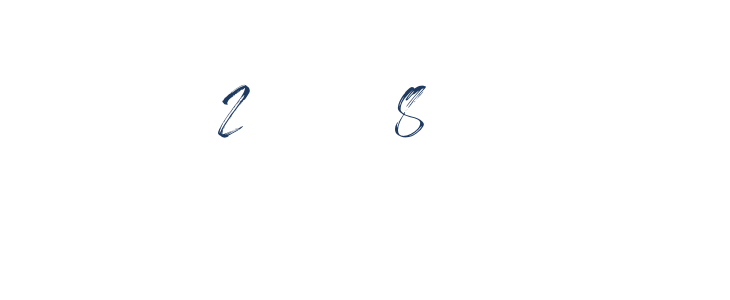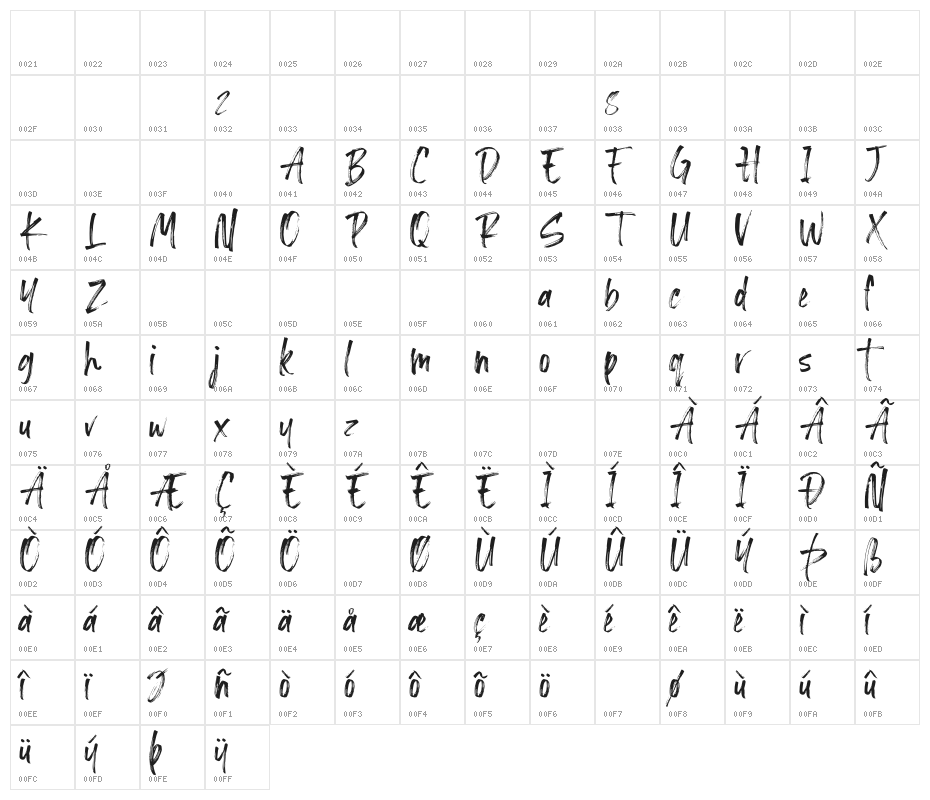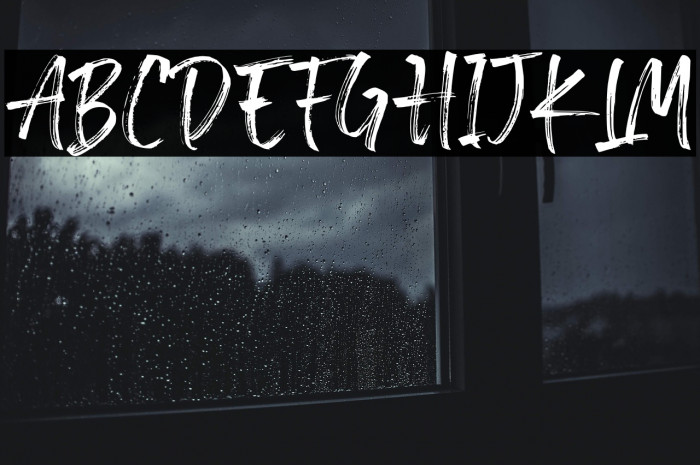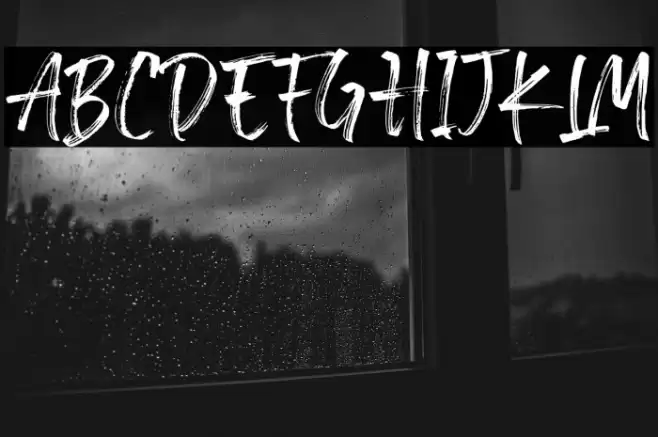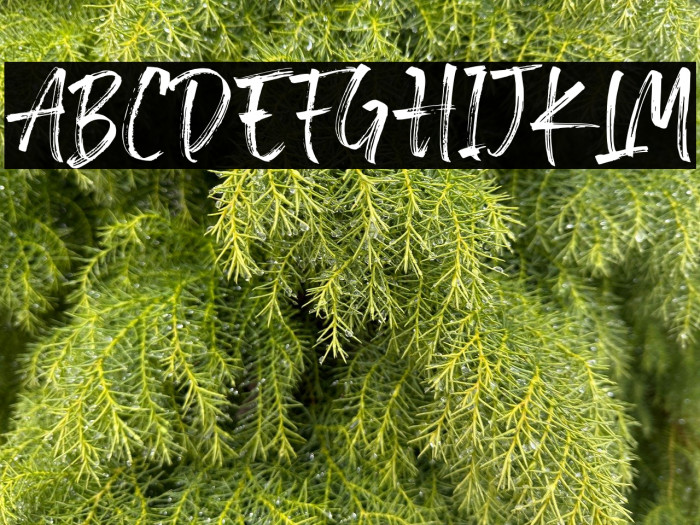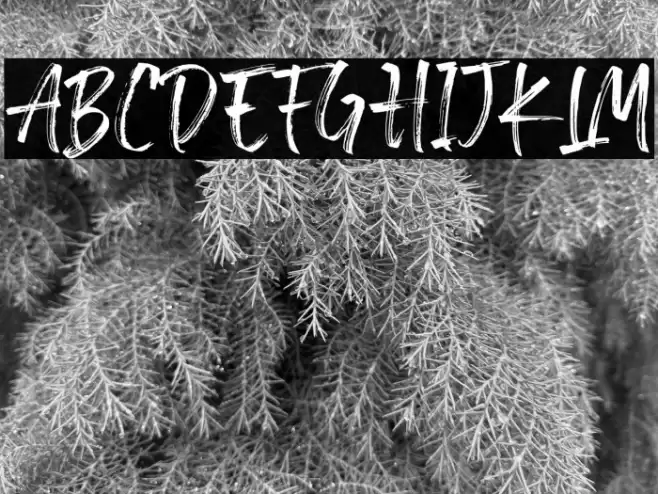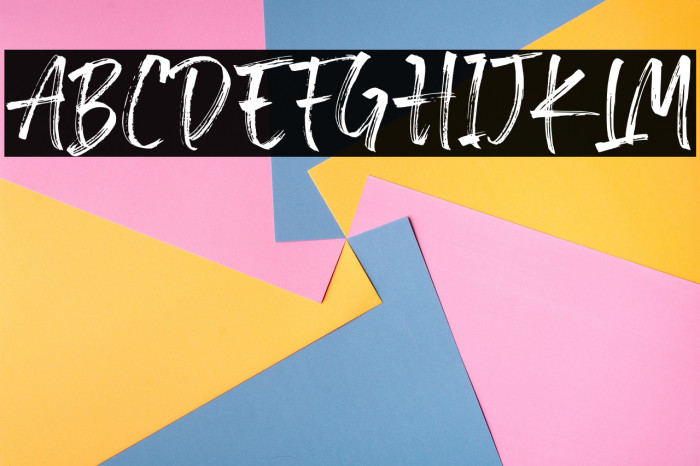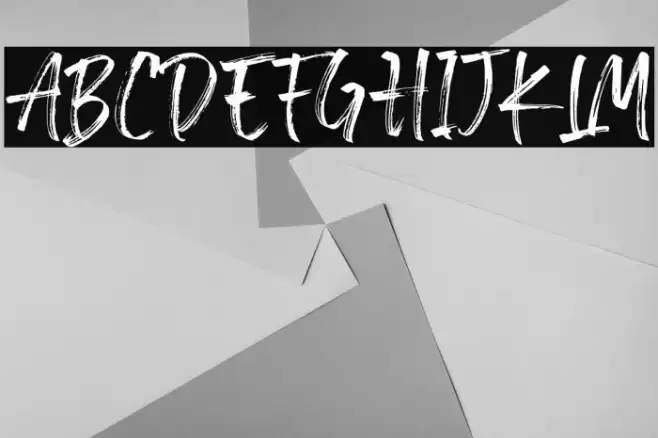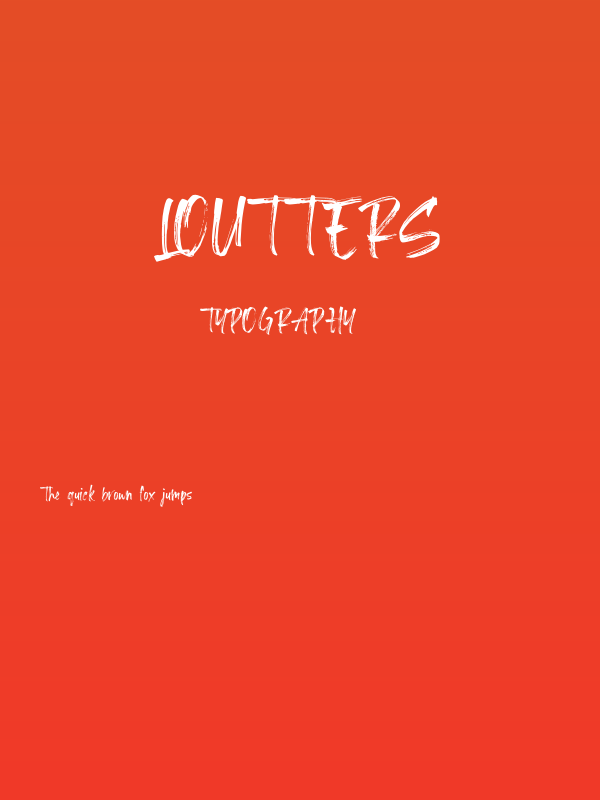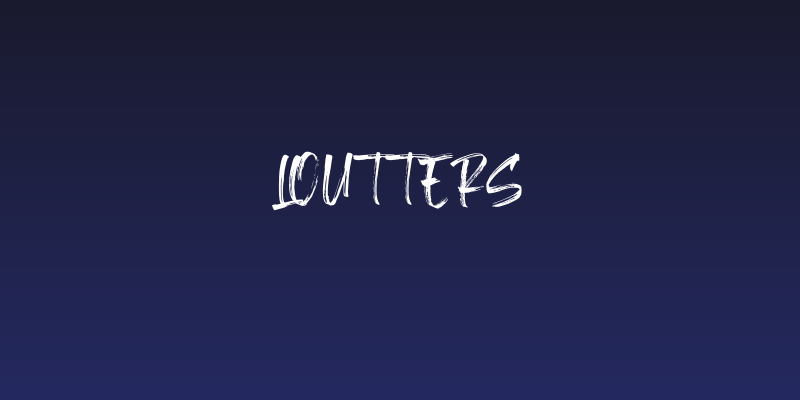
Loutters Font
Loutters Description
This font features a bold, expressive brush style that conveys a sense of energy and movement. The strokes are uneven and dynamic, giving it a hand-painted appearance. The uppercase letters are tall and slightly narrow, while the lowercase letters maintain a consistent flow with varying heights. The numbers are similarly styled, with a distinctive flair. This font is perfect for creating a bold statement, with its artistic and slightly chaotic look. The overall design is highly decorative, making it ideal for projects that require a strong visual impact.
| Proposed Projects | Ideal for posters, branding, album covers, and any project needing a bold, artistic touch. |